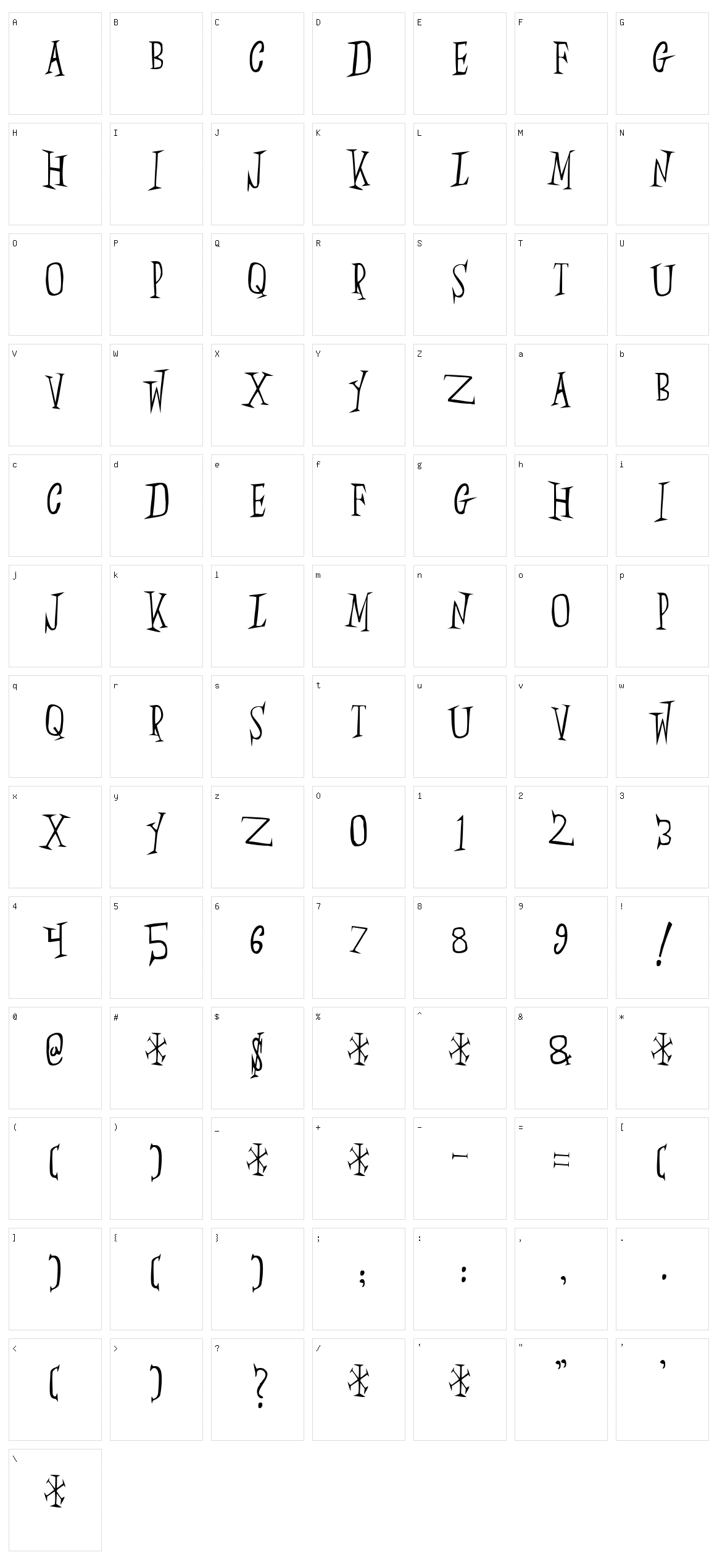
The free font Slumber Party is carefully designed by Cathy Davies, showcasing a thoughtful balance of creativity and usability and falls under the Cartoon font style. When you download the ZIP file, it contains only 26.76 KB of font files, making it lightweight and quick to download. Please review the license details below to understand permitted usage and distribution rights. If license information is not available, we recommend using this font for personal projects only or contacting the author directly for commercial usage permissions.